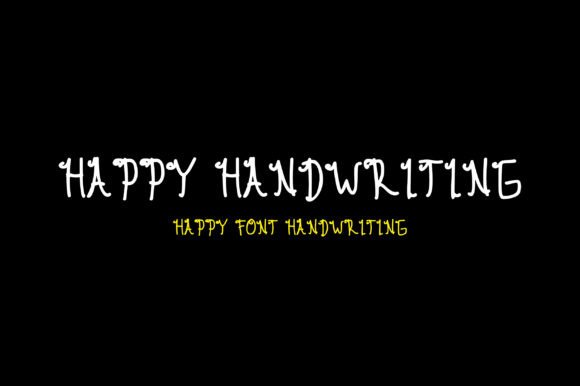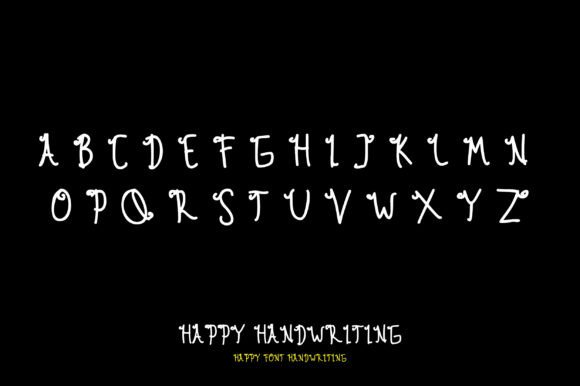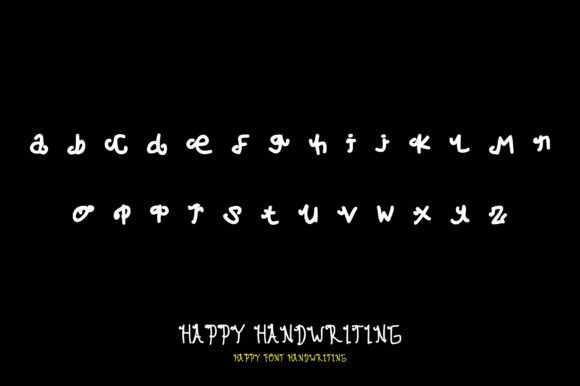
Happy Font
About Happy Font
Happy is more than just a font; it’s a breath of fresh air in the world of design. With its simple and friendly handwritten style, Happy brings a sense of warmth and approachability to any creative project. This font’s versatility knows no bounds, making it a perfect choice for a diverse range of creative ideas.
The simplicity of Happy is its strength. Each stroke carries a natural, unfettered charm, creating a handwritten aesthetic that feels genuine and unpretentious. This simplicity also ensures that Happy is a chameleon in the design world, seamlessly adapting to various contexts.
The friendly demeanor of Happy makes it an ideal companion for a wide pool of creative ideas. Whether you’re crafting a logo that needs a welcoming touch, designing a poster that should exude positivity, or working on a website where a friendly font is key, Happy rises to the occasion. Its innate friendliness establishes an instant connection with the audience, leaving a positive and lasting impression.
Happy’s fresh style breathes life into your designs. It’s like a burst of sunshine on a canvas, infusing energy and vitality. This makes it particularly suitable for projects that aim to evoke a sense of joy, lightness, and spontaneity. From cheerful social media graphics to vibrant packaging designs, Happy adds that extra layer of appeal.
One of the remarkable aspects of Happy is its adaptability. Whether you’re a seasoned designer or a novice experimenting with your creative ideas, Happy is a font that accommodates and enhances your vision. Its unassuming nature allows it to complement other design elements, letting your creativity shine.
In summary, Happy is not just a font; it’s an invitation to infuse your designs with simplicity, friendliness, and a dash of happiness. Its natural and fresh style makes it a go-to choice for a myriad of creative endeavors, creating a space where your ideas can flourish with authenticity and charm.